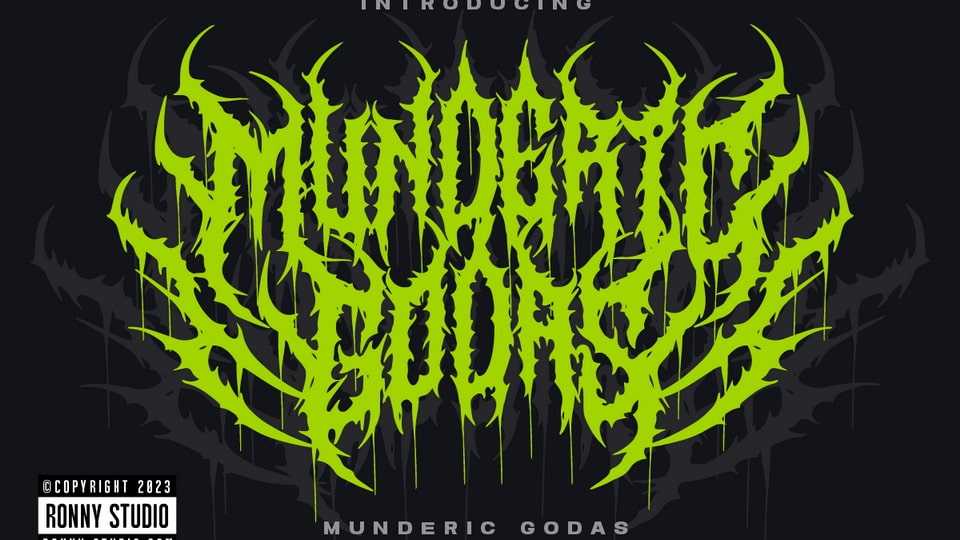
Download Munderic Godas font, a cool alternative typeface to create a logo for your Underground band or whatever. Perfect for the classics of Death- and Blackmetal like pentagram drops, roots, spikes and more.